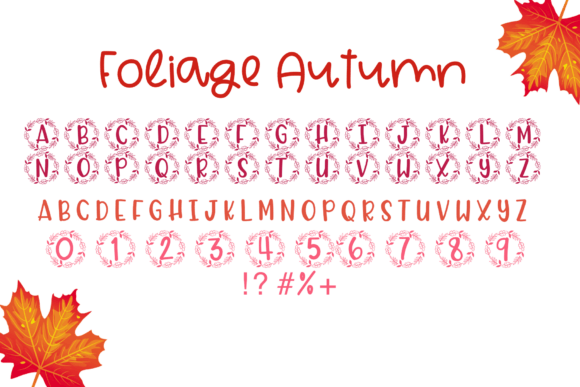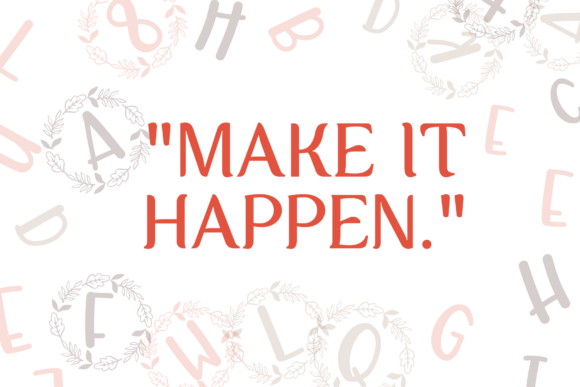
Introduction to Foliage Autumn Font
Foliage Autumn is a Decorative font.
👤 Author Sirinart
You can use it for taking notes, writing a diary, or making greeting cards However, you can still use it for other designs, such as banners, content, mugs, cards, shirts, stationery, social media posts, and more.
Why Choose Foliage Autumn Font?